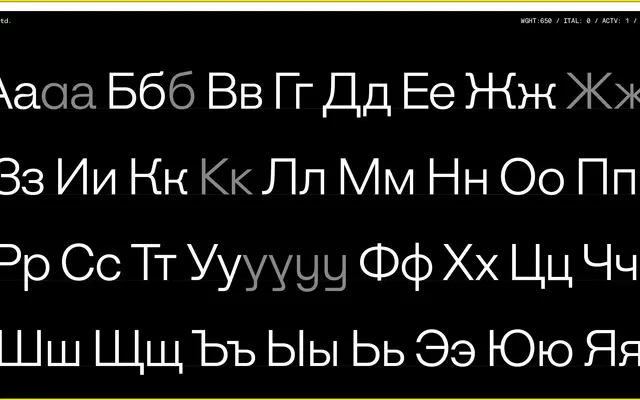
A geometric sans from Interval Type spanning eight weights with extensive OpenType alternates and Cyrillic support.
The family runs from Extralight to Ultra with matching italics throughout, giving fourteen styles in total. Each weight ships with a substantial set of glyph alternates covering both Latin and Cyrillic characters, including one-storey and neutral 'a' variants, geometric cuts for 'f', 'r' and 't', and edgy or simplified options for 'g' and 'y'. The Cyrillic coverage includes alternates for К and Ж, indicating genuine attention to that script rather than a mechanical addition.
The typeface features geometric alternate letterforms for characters such as 'a', 'f', 'g', 'r' and 't', pointing to a geometric sans construction, while the default set retains humanist traits that soften the overall character.